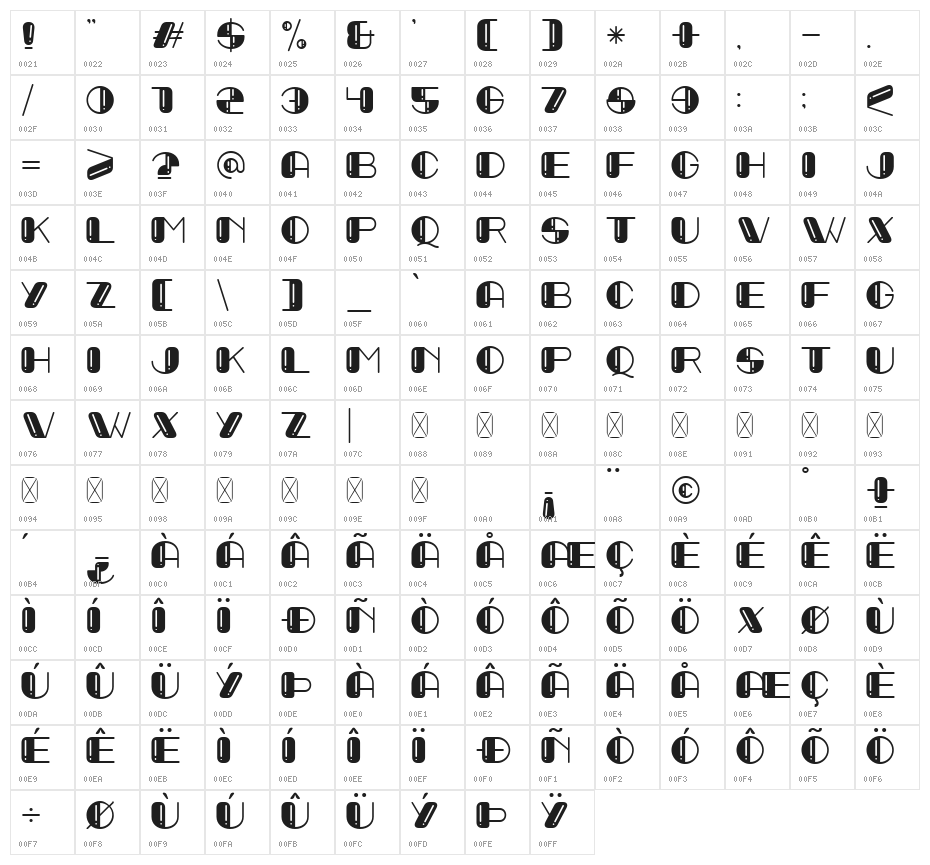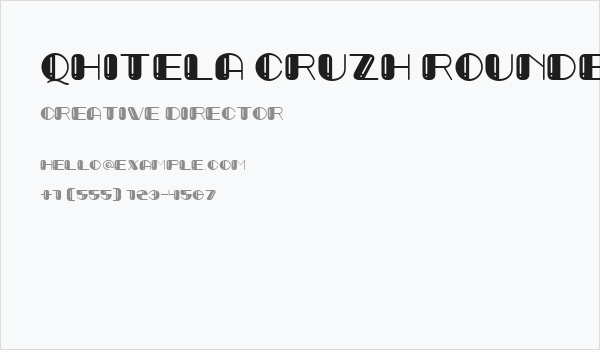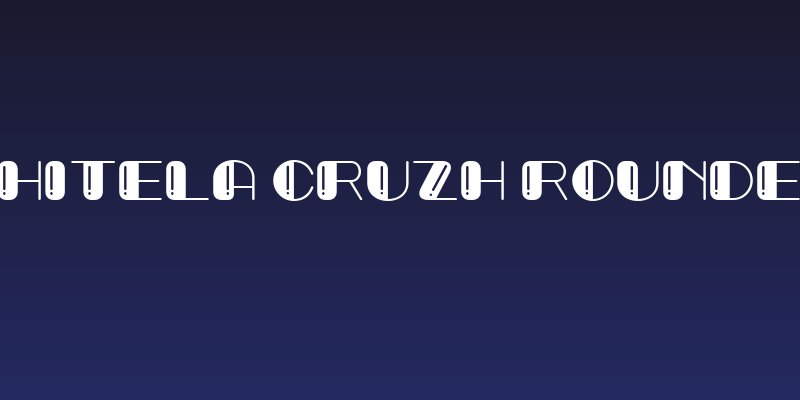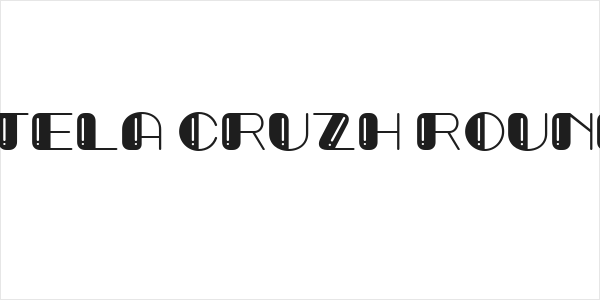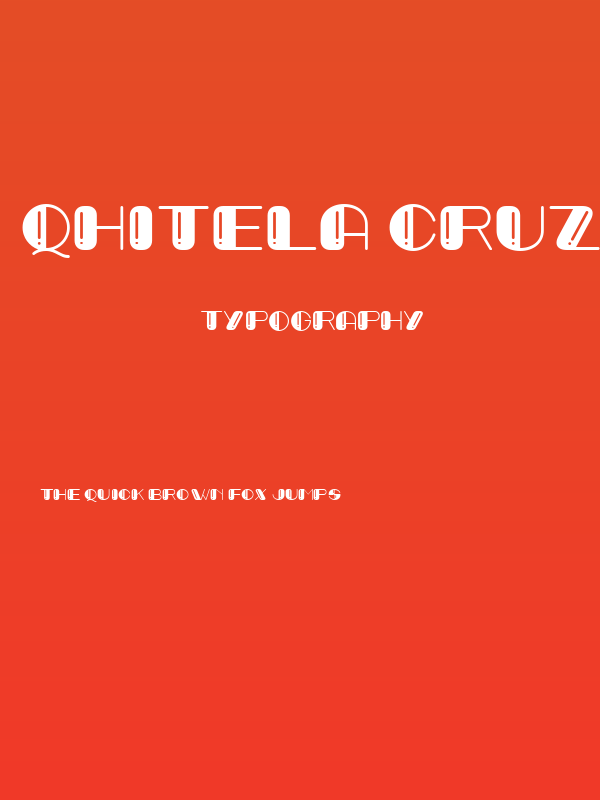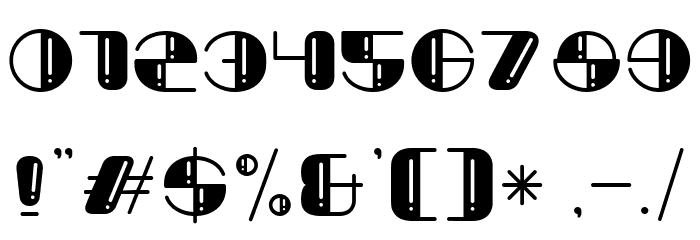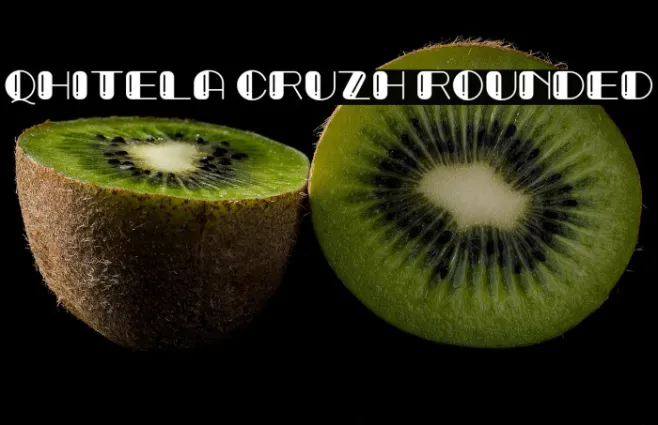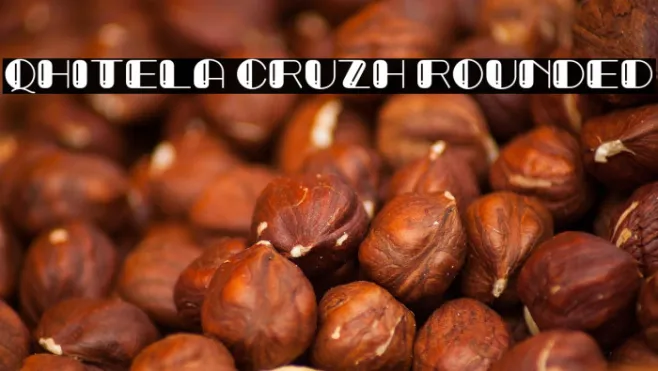
Qhitela Cruzh Rounded Font
Qhitela Cruzh Rounded Description
This font features a unique, futuristic design with rounded edges and a distinct geometric style. Each character is crafted with a combination of solid and hollow spaces, creating a modern and innovative look. The uppercase and lowercase letters maintain a consistent style, with a focus on symmetry and balance. The numbers and special characters are designed to complement the alphabet, maintaining the same aesthetic. This font is ideal for projects that require a bold and eye-catching appearance, making it suitable for branding, advertising, and digital media.
| Proposed Projects | Ideal for branding, advertising, digital media, and futuristic designs. |